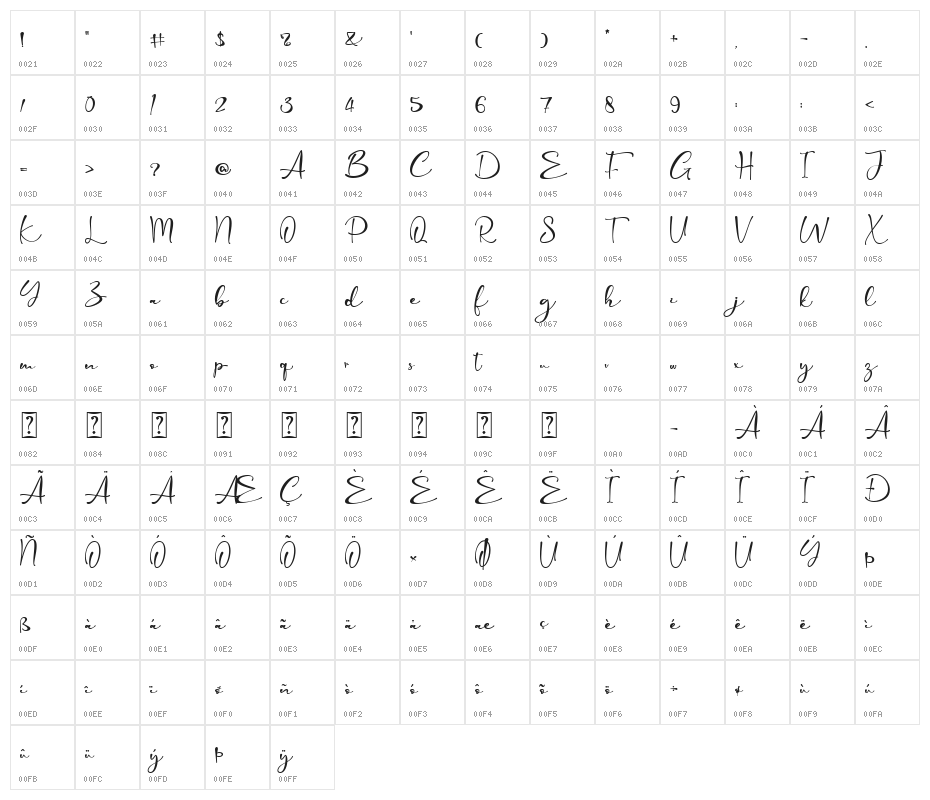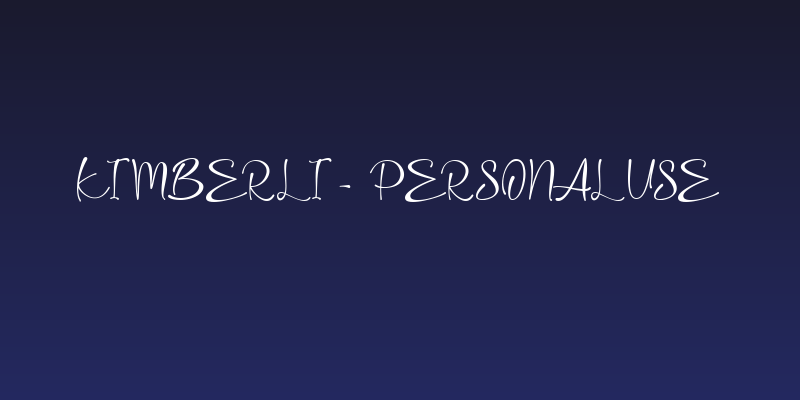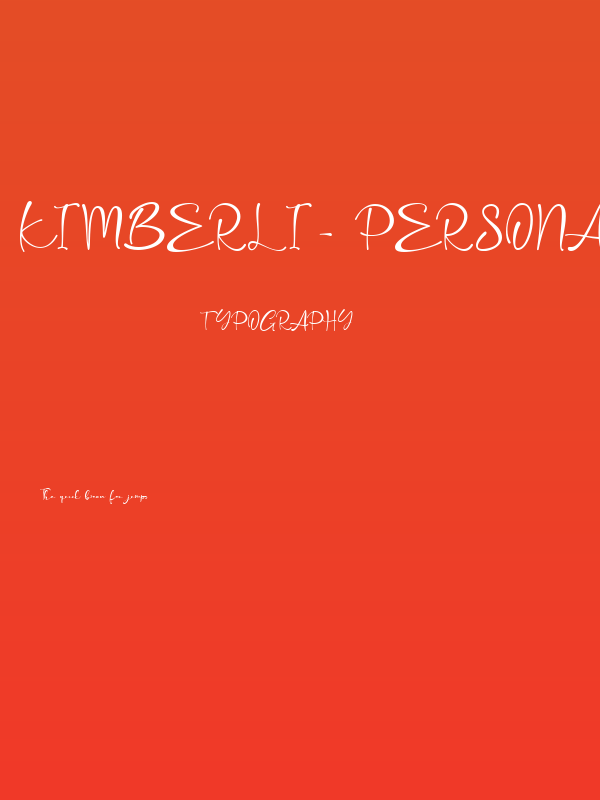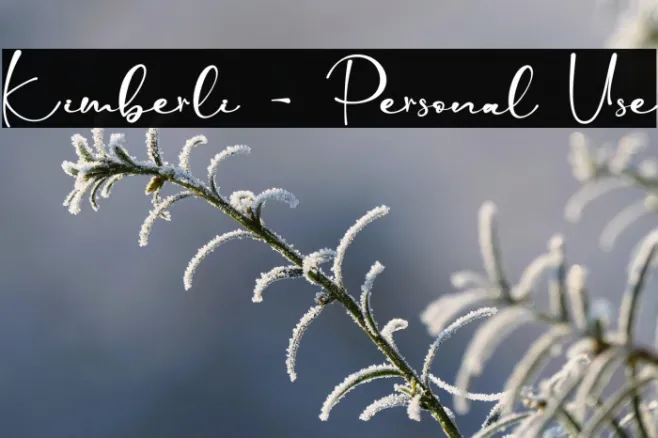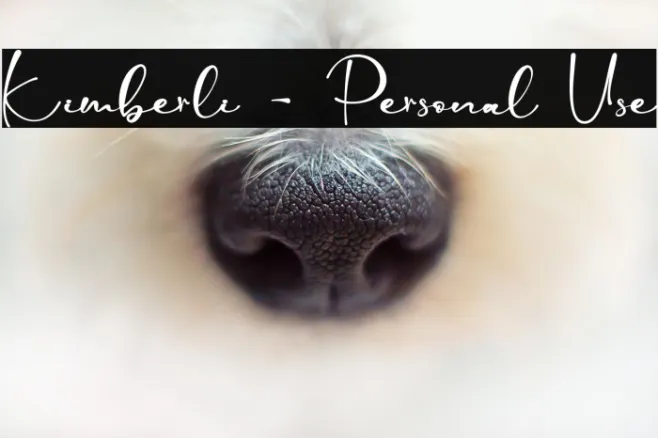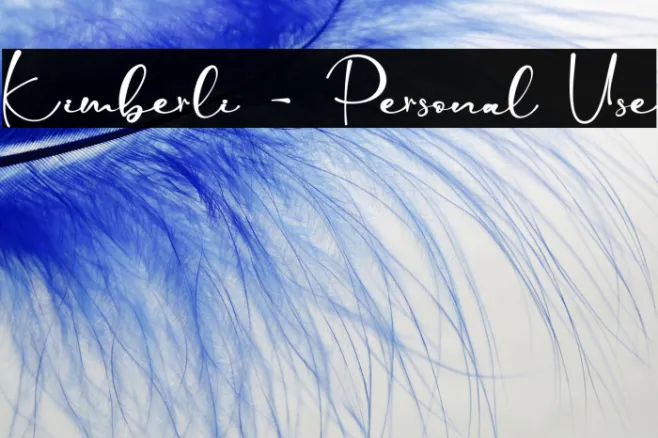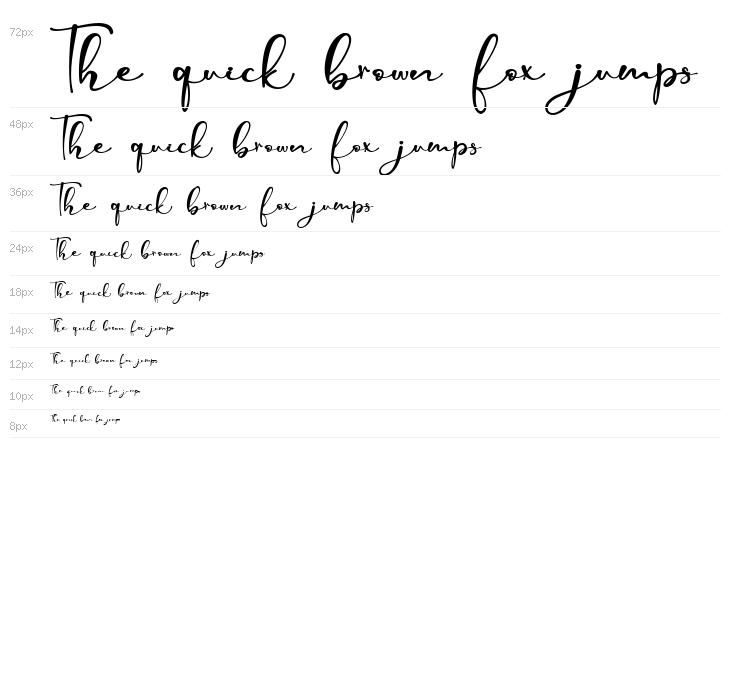
Kimberli - Personal Use Font
Kimberli - Personal Use Description
This font features a playful and elegant script style, characterized by its fluid and cursive letterforms. The uppercase letters are tall and slightly narrow, with a whimsical flair that adds a touch of sophistication. The lowercase letters are more rounded and connected, creating a smooth and flowing appearance. The numerals and special characters maintain the same playful aesthetic, with a consistent stroke width that enhances readability. This font's overall design is both modern and timeless, making it suitable for a variety of creative projects.
| Use Case | Logos, Invitations, Social Media |
| Proposed Projects | Ideal for wedding invitations, greeting cards, branding, and social media graphics. |